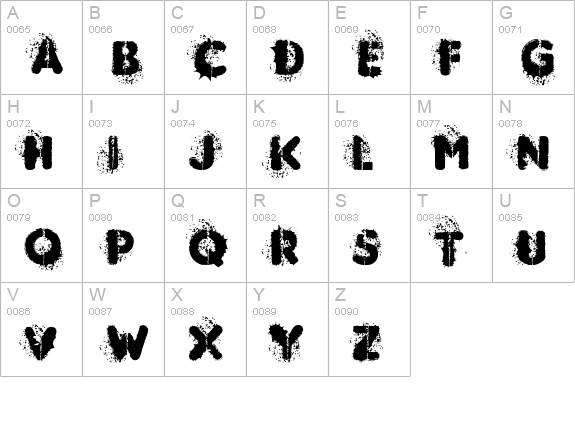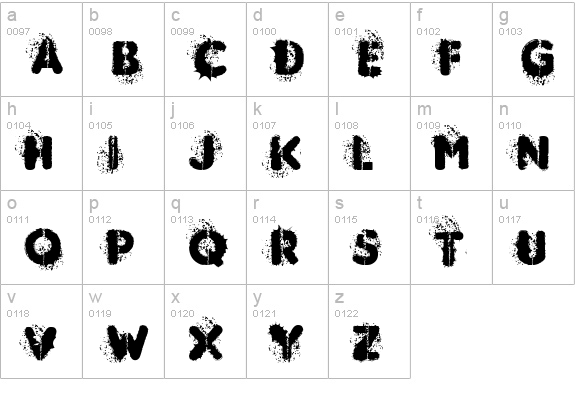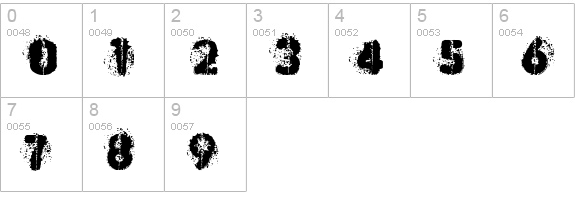
MUDSHAKE 83 Font Details
MUDSHAKE 83 is a bold and striking font that exudes energy and creativity. Its distinctive design features rugged edges and a hand-drawn feel, adding a unique touch to any project. Whether you're designing a poster, logo, or social media graphics, MUDSHAKE 83 will effortlessly catch the eye and leave a lasting impression. This font is perfect for those seeking a free-spirited and edgy look. Its versatile nature allows it to be used in a variety of contexts, from urban streetwear brands to music album covers. MUDSHAKE 83 effortlessly combines elements of boldness and playfulness, making it a go-to choice for designers looking to make a statement. One of the best parts about MUDSHAKE 83 is that it is freely available to download at FontsMarket.com. This means that you can easily access this font and incorporate it into your design projects without any limitations. With its high-quality and professional finish, MUDSHAKE 83 is a font that is not only visually stunning but also highly functional. Whether you're a professional designer or a hobbyist, MUDSHAKE 83 is a font that will elevate your work and give it an extra edge. Its free availability makes it accessible to all, allowing anyone to unleash their creativity and make a lasting impact. So why wait? Download MUDSHAKE 83 today and let your designs speak volumes.